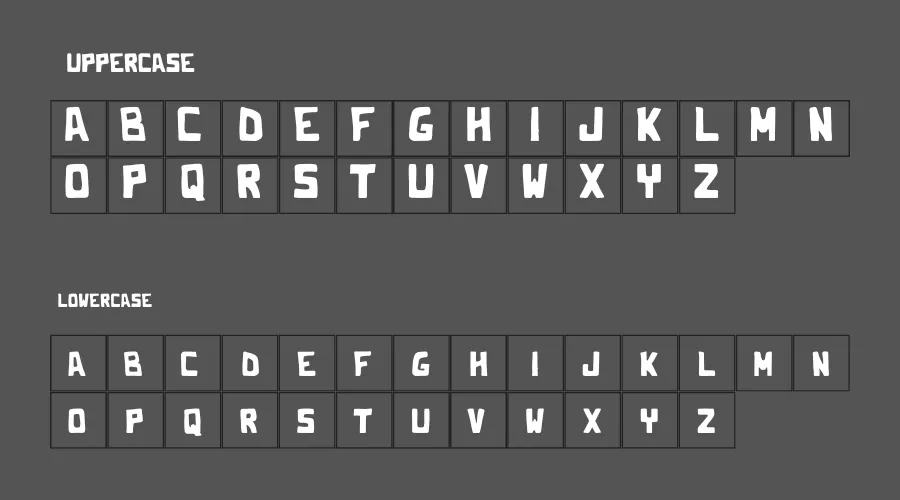
About Cactus Font
Marlon Goncalves designed Cactus Font it is a cartoon typeface. It has a sleek design that works well for a variety of tasks. This typeface has high-quality features and provides a range of characters it is a truly remarkable style.
This magnificent typeface works well when paired with the chunky font is a unique cartoon font. The free version is provided here.